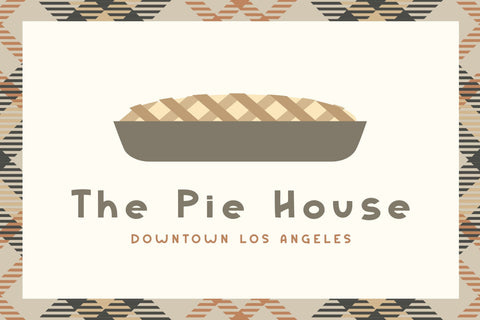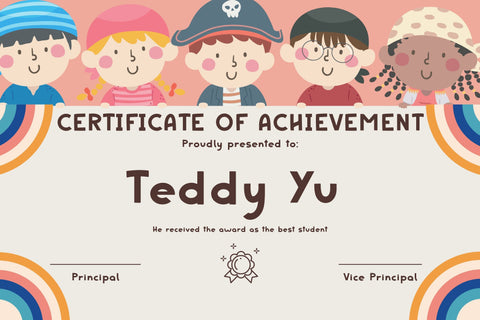
Tanida Display Font
Tanida Display Bold is a striking and commanding font that demands attention. It combines the elegance of a serif typeface with a modern and bold aesthetic, resulting in a visually captivating design. The letterforms of Tanida Display Bold are meticulously crafted, featuring strong and confident strokes that exude a sense of power and sophistication.
Tanida Display Bold possesses excellent legibility, even at smaller sizes, ensuring that your message remains clear and impactful. Whether used in print or digital media, this font effortlessly captures attention and communicates a sense of authority and confidence. With its timeless appeal and versatile nature, Tanida Display Bold is a powerful tool for designers seeking a bold and captivating typography solution.